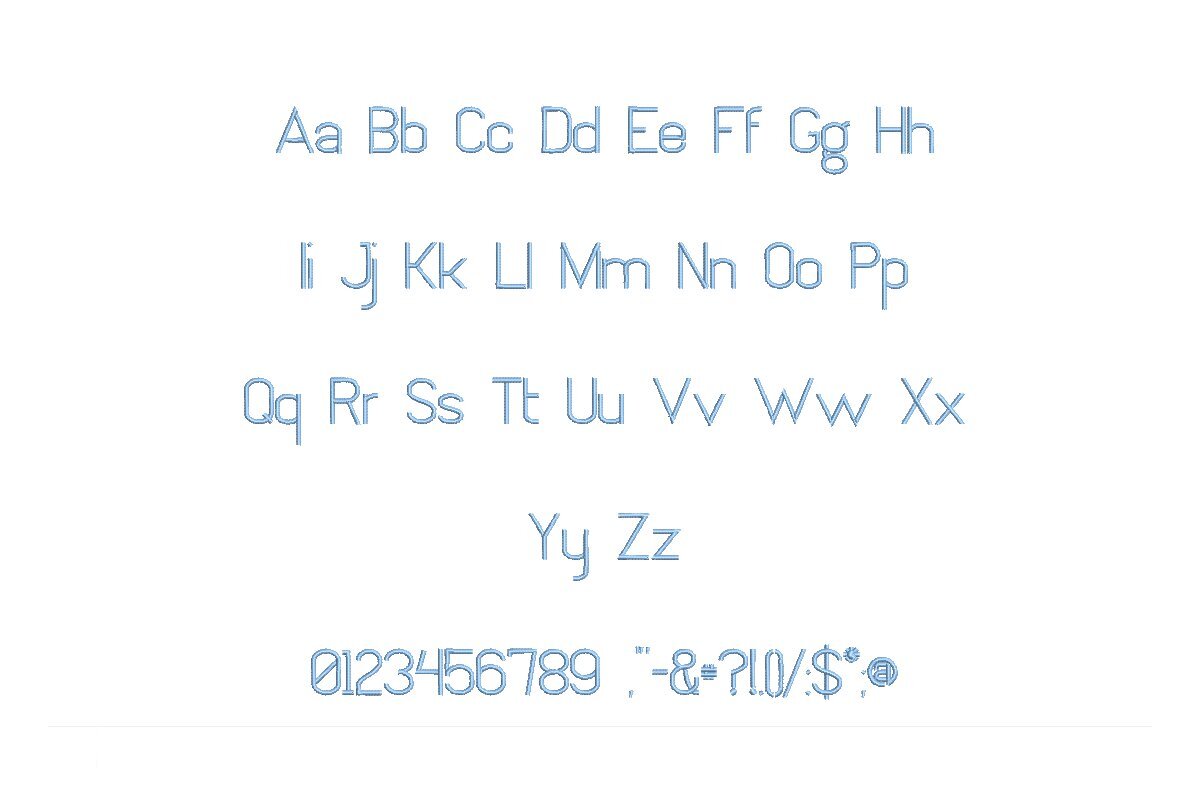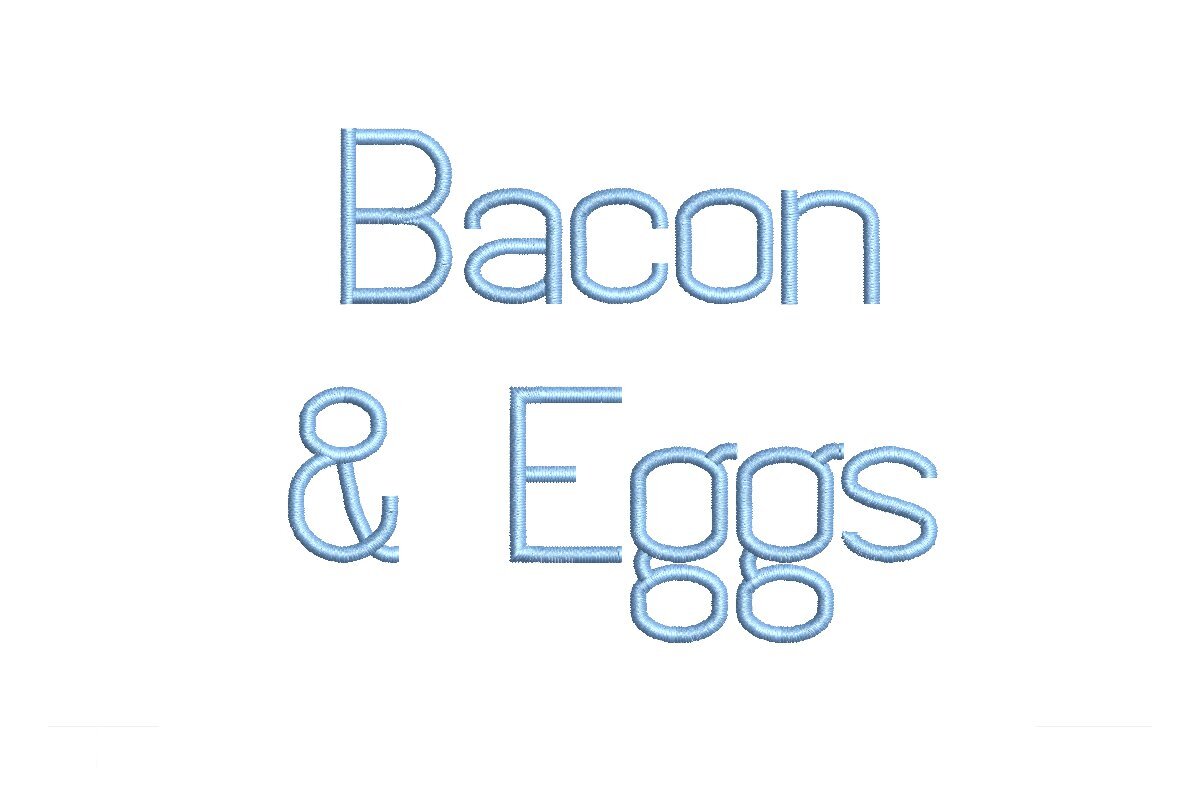
Introducing the Bacon and Eggs ESA Font: Sizzle Up Your Embroidery! Designed for seamless compatibility with Wilcom Studio e4.5.6 and Hatch 3 versions onwards, this font adds a delectable touch to your designs. Infuse your projects with the fun, whimsy, and charm of bacon and eggs. Whether you're a professional or a hobbyist, this font brings a burst of creativity to your toolkit. Its easy integration with the latest software versions ensures efficiency and precision. Each stitch is a savory masterpiece. Spice up your embroidery projects with the Bacon and Eggs ESA Font today – because creativity is always on the menu!